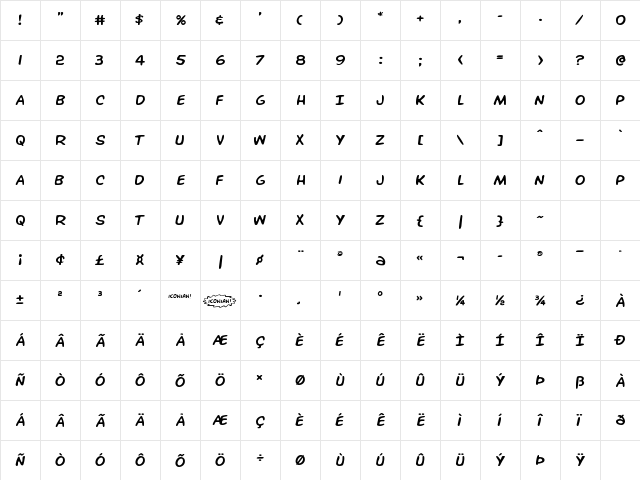
Overstreet Bible Expanded Expanded
Design Context for Overstreet Bible Expanded Typeface
Overstreet Bible Expanded is a composed and adaptable typeface that performs quietly and consistently across a wide range of design contexts.